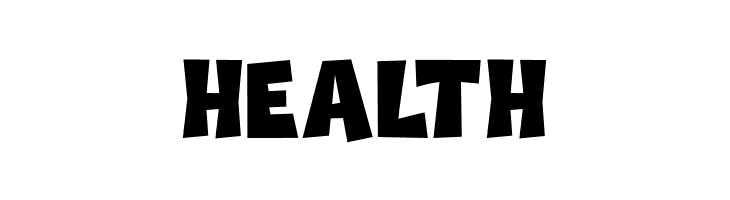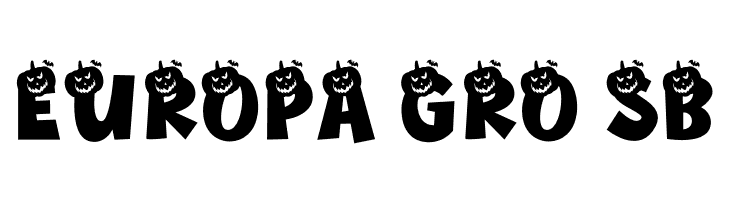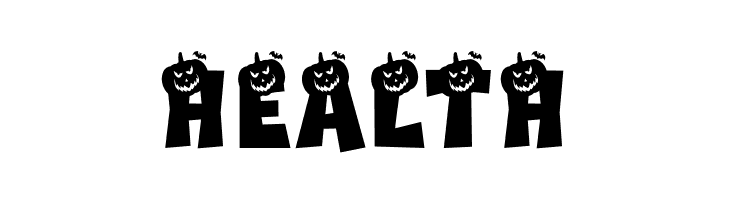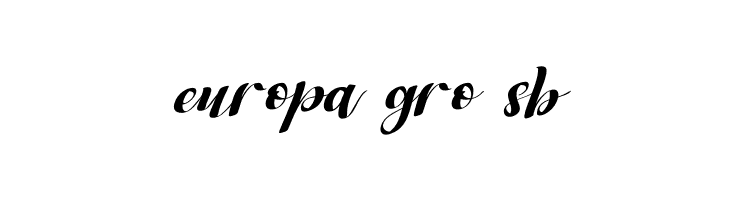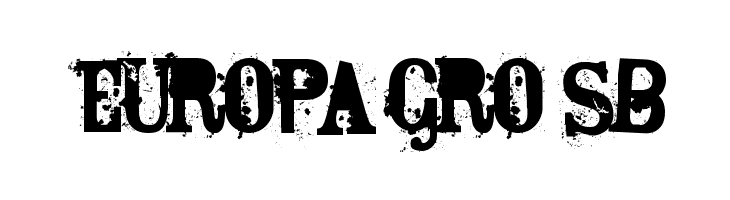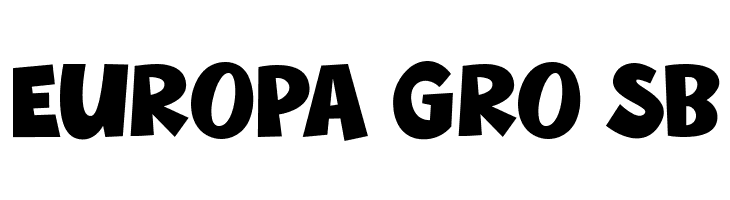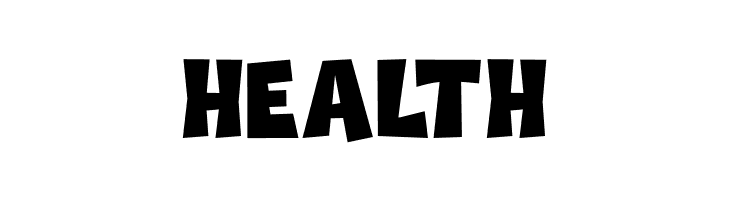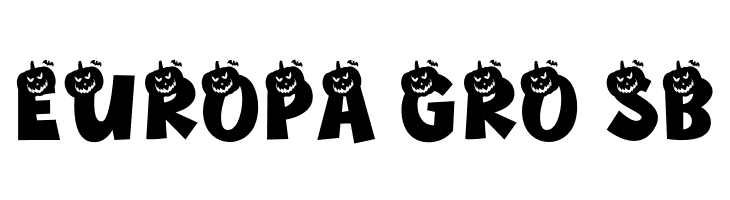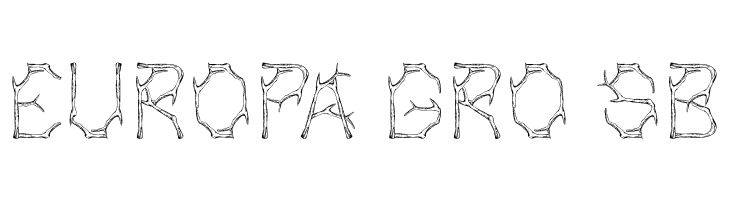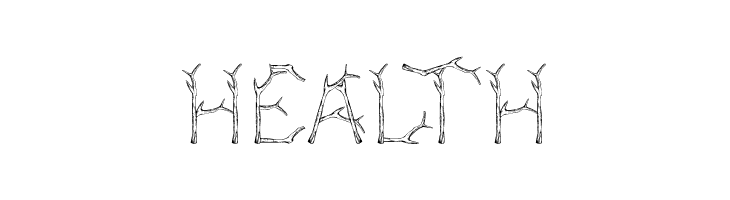
A bold, playful font with exaggerated, uneven strokes and a lively appearance.
A decorative font resembling intertwined branches with a naturalistic style.
A bold, Halloween-themed font with playful, spooky elements.
A rustic, branch-inspired font with an organic, naturalistic style.
A bold, playful Halloween-themed font with jack-o'-lantern faces on each character.
A bold, distressed font with a grunge texture, ideal for impactful designs.
Hand-drawn dingbat font with bag and container illustrations.
Hand-drawn bag and suitcase illustrations as font glyphs.
An elegant, cursive font with flowing, interconnected letters and ornate flourishes.
An elegant, italicized script font with flowing, connected strokes.